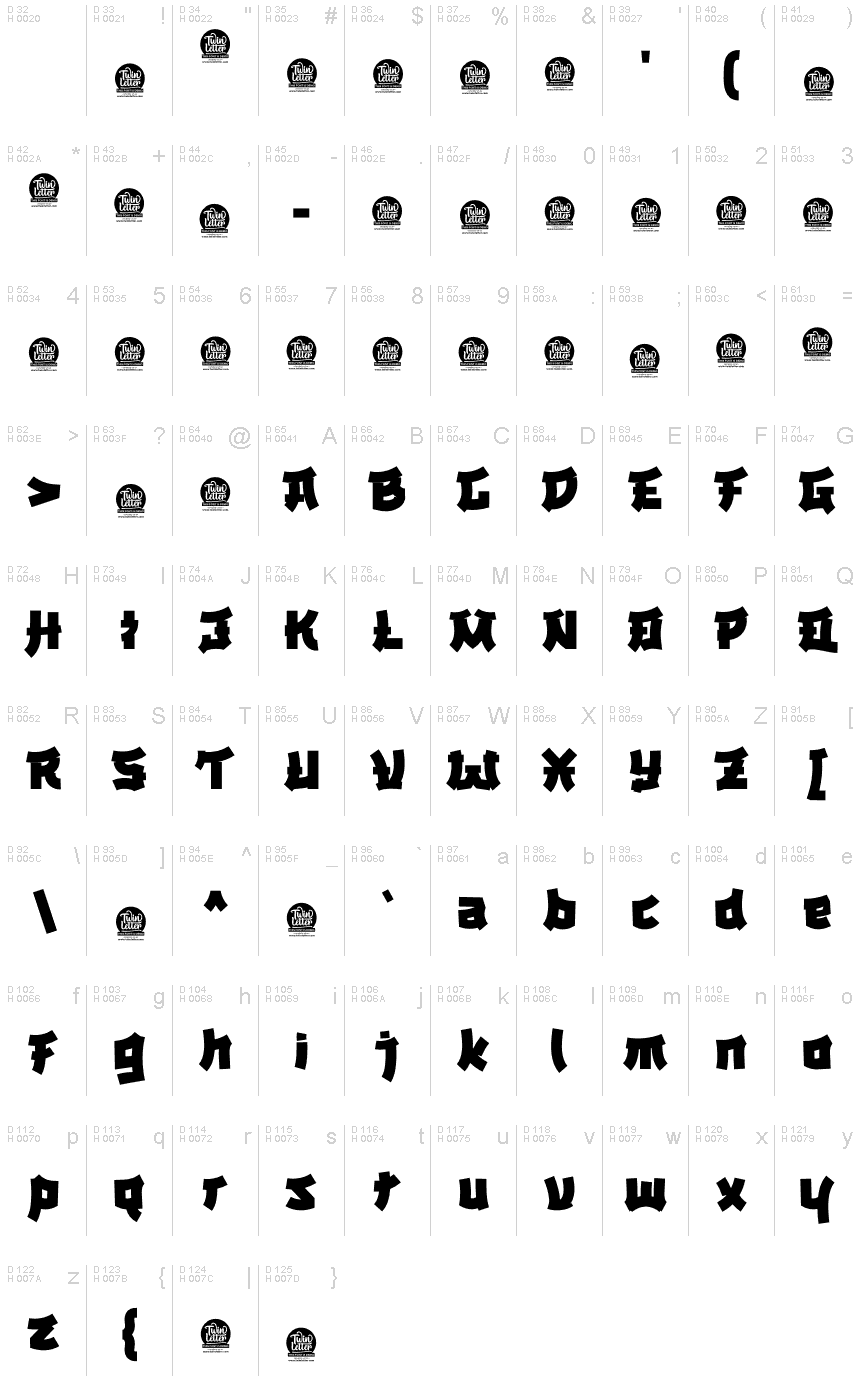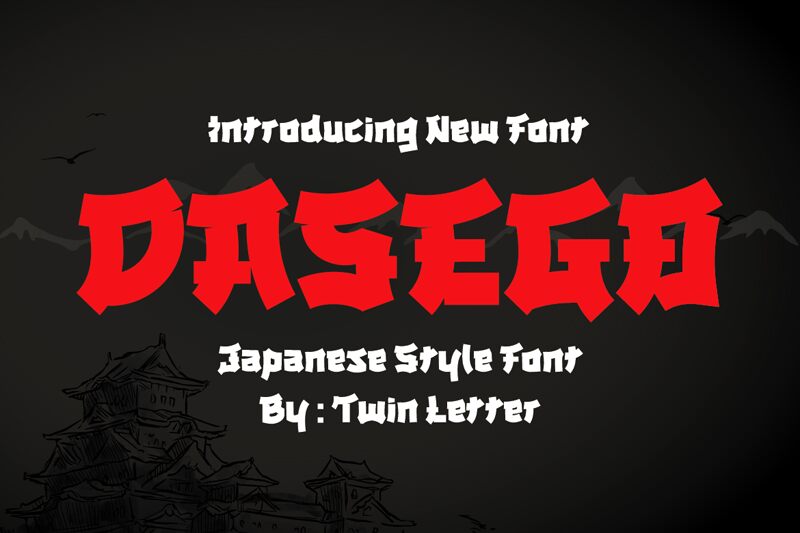
DASEGO Personal Use
DASEGO is a lovely font created by ROZI with a bold, wide Japanese-style. Perfect for logos and branding projects, DASEGO is sure to give your designs an authentic, unique flair.